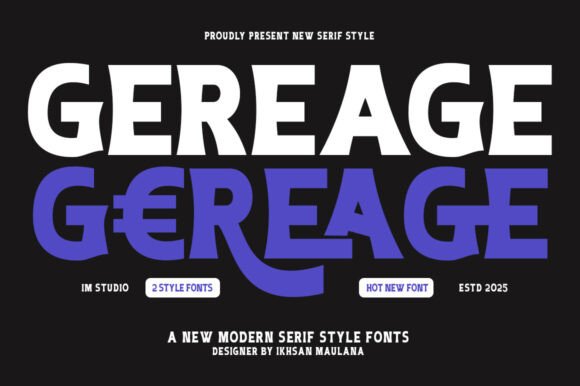
Gereage Font: Adding a Touch of Whimsy to Your Designs
In the world of typography, fonts play a crucial role in conveying the tone and personality of a design. With the numerous font options available, it can be challenging to find one that stands out from the rest. However, if you’re looking for a font that can add a dash of charisma and whimsy to your designs, look no further than Gereage Font. In this article, we’ll introduce you to Gereage, a captivatingly quirky display font that’s sure to captivate your audience.
What is Gereage Font?
Gereage Font is a unique and delightful display font that effortlessly brings a touch of charm and personality to your designs. With its distinctive characteristics, Gereage imbues your works with an endearing charm that’s sure to leave a lasting impression on your audience. Whether you’re a graphic designer, artist, or simply someone who loves to dabble in design, Gereage Font is an excellent addition to your font collection.
The Beauty of Gereage Font
The beauty of Gereage Font lies in its PUA (Private Use Area) coding, which provides easy access to a treasure trove of exquisite glyphs and ligatures. This means that you can easily incorporate unique and creative elements into your designs, setting them apart from the rest. With Gereage Font, you’ll have the freedom to experiment with different styles and effects, allowing you to create designs that are truly one-of-a-kind.
Characteristics of Gereage Font
Gereage Font boasts a range of characteristics that make it an excellent choice for designers looking to add a touch of whimsy to their works. Some of its notable features include:
- Unique and quirky design
- Delightful and distinctive characteristics
- PUA coding for easy access to glyphs and ligatures
- Endearing charm that’s sure to captivate your audience
- Versatile and adaptable to various design styles
Uses of Gereage Font
Gereage Font is an incredibly versatile font that can be used in a variety of design projects. Some of the ways you can use Gereage Font include:
- Logos and branding
- Posters and flyers
- Social media graphics
- Web design
- Print design
The Benefits of Using Gereage Font
There are many benefits to using Gereage Font in your designs. Some of the advantages of this font include:
- Instantly adds a touch of charisma and whimsy to your designs
- Helps to create a unique and memorable brand identity
- Can be used in a variety of design projects
- Easy to use and customize
- PUA coding for easy access to glyphs and ligatures
In conclusion, Gereage Font is a captivatingly quirky display font that’s sure to bring a dash of charisma and whimsy to your designs. With its delightful and distinctive characteristics, Gereage imbues your works with an endearing charm that’s sure to captivate your audience. Whether you’re a graphic designer, artist, or simply someone who loves to dabble in design, Gereage Font is an excellent addition to your font collection.
Final Thoughts
Gereage Font is a unique and versatile font that’s perfect for designers looking to add a touch of personality to their works. With its PUA coding and exquisite glyphs and ligatures, Gereage Font is sure to help you create designs that stand out from the rest. So why not give Gereage Font a try today and see the splendid results for yourself?